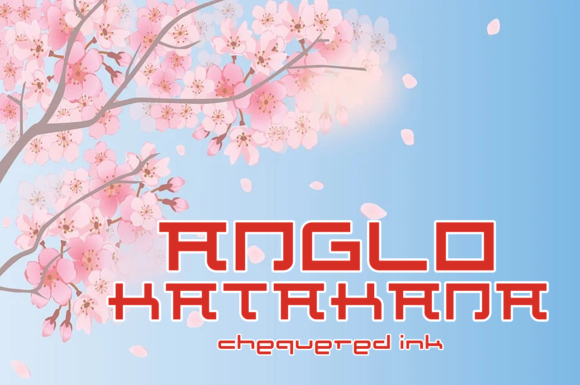
Embark on a typographic odyssey to the Far East with Anglo Katakana, the display font that seamlessly blends the mystique of the Orient with the familiarity of the Latin alphabet. Unleash your inner calligrapher and let your words dance with grace and elegance, mirroring the beauty of Chinese characters in Word.
With Anglo Katakana, you hold the key to unlocking a world of design possibilities, crafting visuals that exude an aura of sophistication and intrigue. Picture your designs adorned with characters that evoke the wisdom of ancient scrolls, yet retain the clarity and accessibility of Latin letters. From captivating logos that demand attention to eye-catching headlines that linger in the memory, Anglo Katakana empowers you to weave a tapestry of visual stories that transcend linguistic boundaries.
Imagine the allure of a poster advertising an upcoming martial arts tournament, its title emblazoned in Anglo Katakana, inviting participants and spectators alike to immerse themselves in a realm of fierce competition and ancient traditions. Or envision a travel brochure showcasing the wonders of China, each destination name rendered in Anglo Katakana, beckoning travelers to embark on an adventure through history, culture, and natural beauty.
Allow Anglo Katakana to be the brush that paints your creative vision, transforming ordinary words into captivating works of art. Its versatility knows no bounds, lending itself effortlessly to a myriad of design applications. Whether you're crafting a stunning website, designing brochures that exude elegance, or creating social media posts that captivate your audience, Anglo Katakana will elevate your designs to new heights of visual appeal.
Don't settle for ordinary fonts that fail to inspire. Embrace the exotic allure of Anglo Katakana and watch as your designs blossom into masterpieces that captivate and enchant. Let your creativity soar as you explore the boundless possibilities of this extraordinary font, leaving an indelible mark on the minds of all who encounter it.